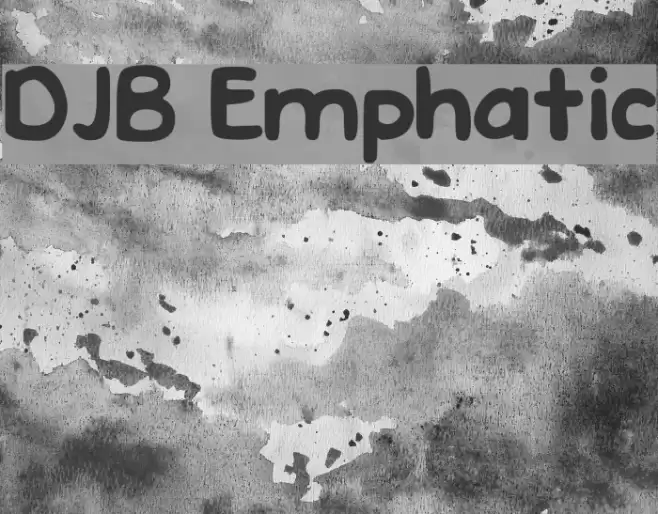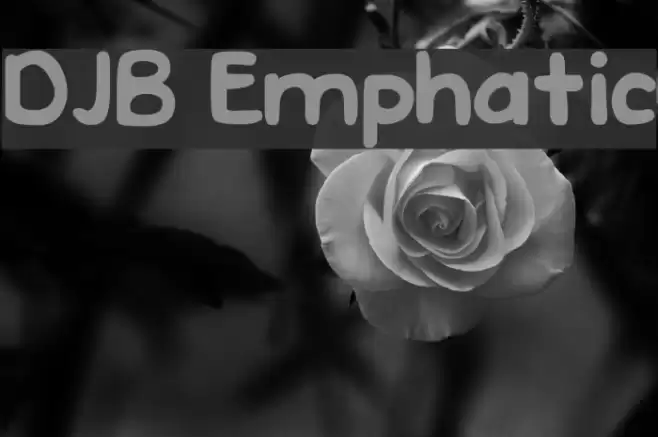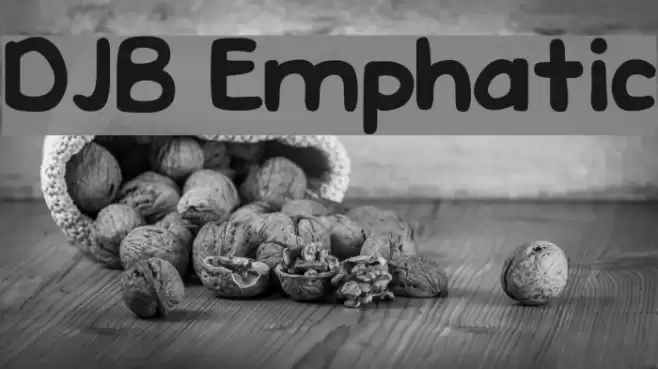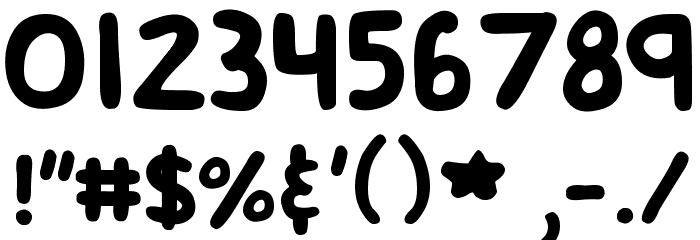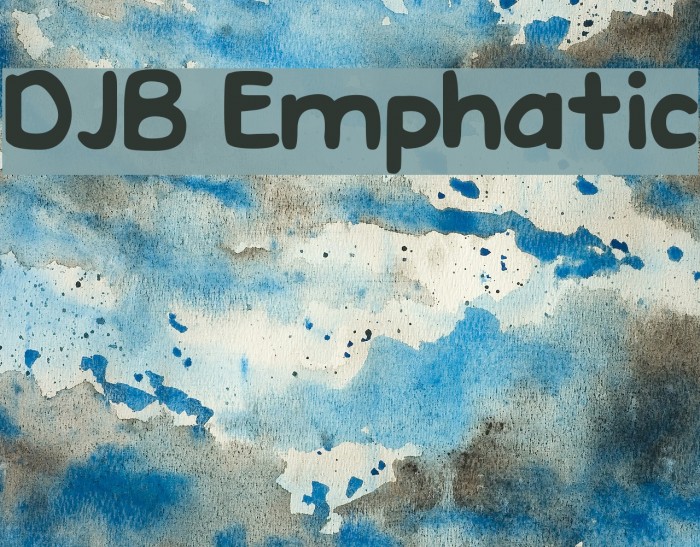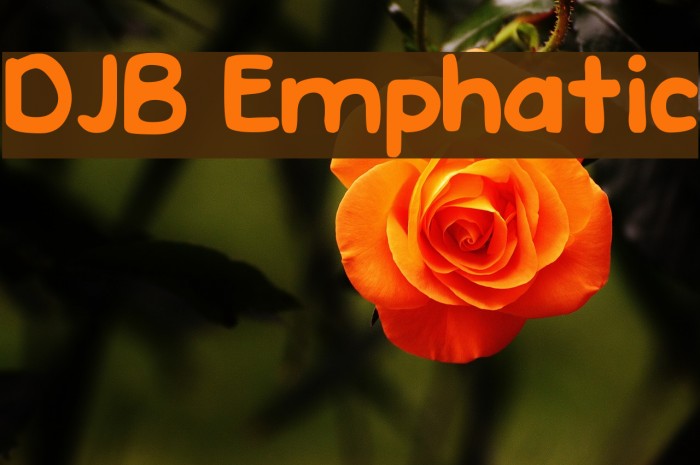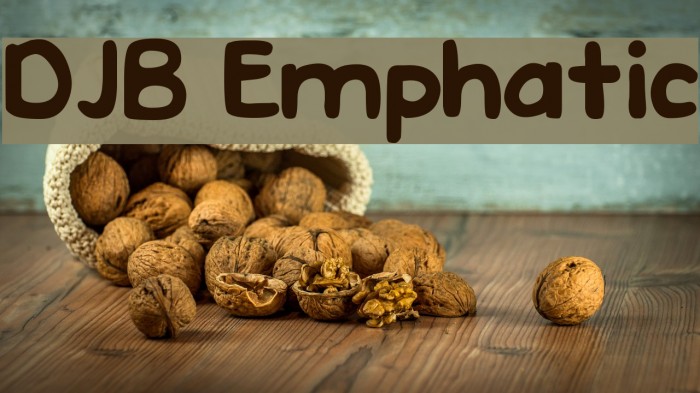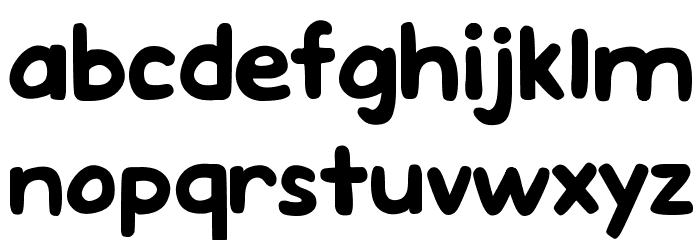
DJB Emphatic Font
DJB Emphatic Description
This playful and bold font features rounded, thick strokes that give it a friendly and approachable appearance. The characters are uniformly wide, with a consistent stroke weight that maintains readability while adding a touch of whimsy. The uppercase and lowercase letters are well-balanced, with a slight bounce that adds to the font's charm. The numbers and special characters are equally bold, ensuring they stand out in any design. This font's style is perfect for projects that require a fun and informal touch, making it ideal for children's books, playful branding, or casual invitations.
A playful, bold font with rounded strokes and a friendly appearance from Comic fonts.
- Proposed Projects: Ideal for children's books, playful branding, casual invitations, and informal designs.
- Overall Style: Playful